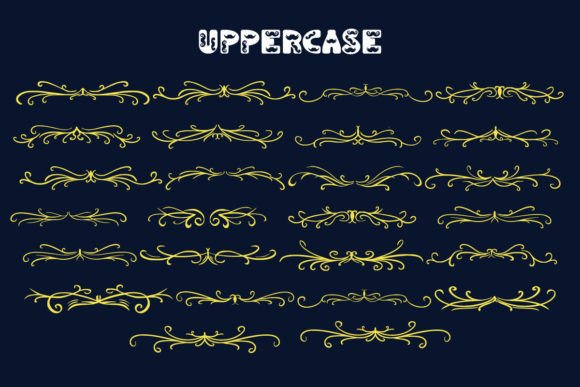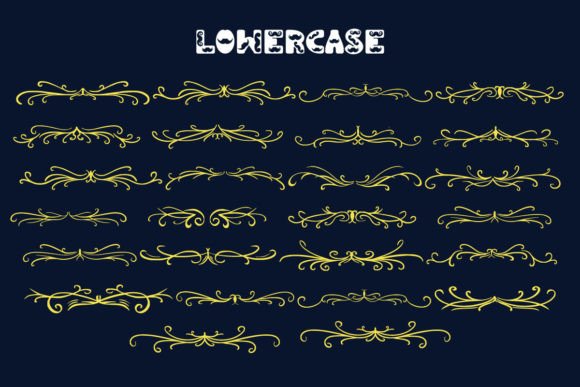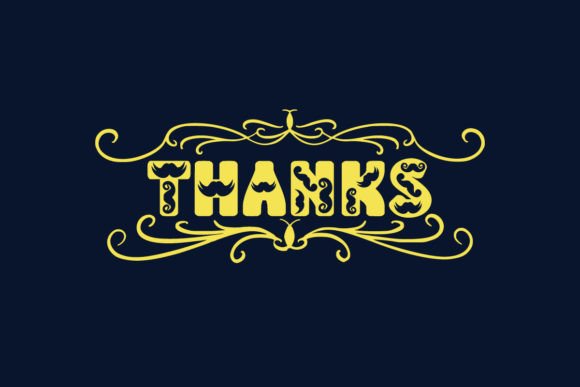
Introducing Divor Font: A Unique Vintage & Ornaments-Style Custom Dingbat Font
Are you a designer or crafter looking for a font that adds a touch of retro or vintage style to your branding projects? Look no further than Divor Font, a one-of-a-kind custom dingbat font that’s sure to make your designs stand out.
What is Divor Font?
Divor Font is a unique vintage and ornamental style custom dingbat font that’s perfect for adding a touch of nostalgia to your designs. With its intricate details and classic charm, this font is ideal for retro or vintage style branding projects, logos, packaging, and more.
Key Features of Divor Font
- Unique and Ornate Design: Divor Font features an ornate and intricate design that’s sure to add a touch of elegance to your projects.
- Vintage and Retro Style: This font is perfect for designers and crafters who want to create retro or vintage-style branding projects that evoke a sense of nostalgia.
- Custom Dingbat Font: Divor Font is a custom dingbat font that features a range of unique and decorative characters, including letters, numbers, and symbols.
- High-Quality Design: This font is designed with high-quality craftsmanship in mind, ensuring that it looks great in any design or project.
Use Cases for Divor Font
Divor Font is a versatile font that can be used in a variety of design projects, including:
- Branding and Logos: Use Divor Font to create unique and eye-catching logos that add a touch of retro or vintage style to your brand.
- Packaging Design: Add a touch of elegance to your packaging designs with Divor Font, perfect for food, beverage, or cosmetic packaging.
- Stationery and Print Design: Use Divor Font to create beautiful and unique stationery, business cards, and print designs that stand out from the crowd.
- Digital Design: Divor Font can also be used in digital designs, such as social media graphics, website headers, and more.
Why Choose Divor Font?
With so many fonts available, why choose Divor Font? Here are just a few reasons why designers and crafters love this unique font:
- Unique and Exclusive Design: Divor Font is a one-of-a-kind font that’s sure to make your designs stand out from the crowd.
- High-Quality Craftsmanship: This font is designed with high-quality craftsmanship in mind, ensuring that it looks great in any design or project.
Tips for Using Divor Font
Here are a few tips for using Divor Font in your design projects:
- Pair with Other Fonts: Pair Divor Font with other fonts to create a unique and eye-catching design.
- Use in Combination with Images: Use Divor Font in combination with images or illustrations to create a beautiful and unique design.
Divor Font is a unique and ornamental style custom dingbat font that’s perfect for adding a touch of retro or vintage style to your design projects. With its intricate details and classic charm, this font is sure to make your designs stand out from the crowd. Whether you’re a designer or crafter, Divor Font is a great choice for any project that requires a touch of elegance and sophistication.